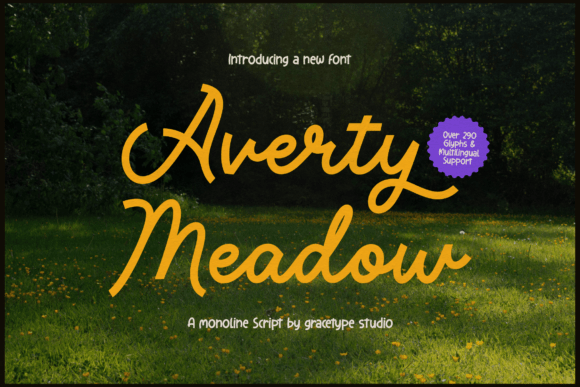
A Breath of Fresh Air in Typography: Introducing the Averty Meadow Font
As a designer, there’s nothing quite like the feeling of stumbling upon a font that perfectly captures the essence of a project. For me, that moment came when I discovered the Averty Meadow Font – a beautiful, hand-drawn script that evokes the serenity of a blooming meadow on a warm summer day.
Averty Meadow is a typographic representation of the natural world, featuring over 290 glyphs and multilingual support. This font is perfect for designers looking to add a touch of elegance and sophistication to their work, particularly in projects that require a connection to the outdoors, such as garden-themed wedding invitations, organic skincare packaging, or artisanal product labels.
What sets Averty Meadow apart is its incredible flexibility and high legibility, even at smaller sizes. With its consistent line weight and elegant loops, this font is a valuable asset for designers seeking to create visually stunning and effective designs.
Averty Meadow Font Key Features
- Font Family: Averty Meadow Font
- Size: 12 styles, including Regular, Italic, Bold, and Bold Italic
- Unique Characteristics: Hand-drawn, elegant, and whimsical design with a natural feel, perfect for creating a sense of warmth and sophistication in various designs
Averty Meadow Font Review
I recently had the chance to work with the Averty Meadow Font, and I must say it’s a unique addition to any design project. ✨ The elegant, handwritten style adds a touch of sophistication to any text, making it perfect for high-end branding, wedding invitations, or other special occasions. ✨ The font’s subtle imperfections give it a handmade feel, which I love.
One of the standout features of Averty Meadow is its versatility. It comes in a range of weights, from light to bold, making it easy to use in a variety of contexts. ✨ I also appreciate the font’s extensive character set, which includes a wide range of punctuation and special characters.
While I love the Averty Meadow Font, there are a few limitations to be aware of:
- ⚠️ The font may be difficult to read in small sizes or when used in a crowded layout.
- ⚠️ Some characters, such as the lowercase ‘a’ and ‘e’, may be tricky to distinguish from each other.
- ⚠️ The font’s imperfections may not be to everyone’s taste – some designers may find them distracting or unprofessional.
Overall, I think the Averty Meadow Font is a great choice for designers looking for a unique, high-end font. While it may have some limitations, its elegance and versatility make it a valuable addition to any design toolkit.
Averty Meadow Font Practical Application Guide
Tips for Getting the Most Out of Averty Meadow Font
Use Averty Meadow Font for rustic or vintage-themed designs. Pair it with distressed textures or watercolor backgrounds for a unique look. Experiment with different font sizes and styles to create visual interest.
Averty Meadow Font is suitable for:
- Rustic or vintage-themed designs
- Wedding invitations or stationery
- Outdoor or nature-inspired designs
- DIY or handmade products
Alternatives to Averty Meadow Font